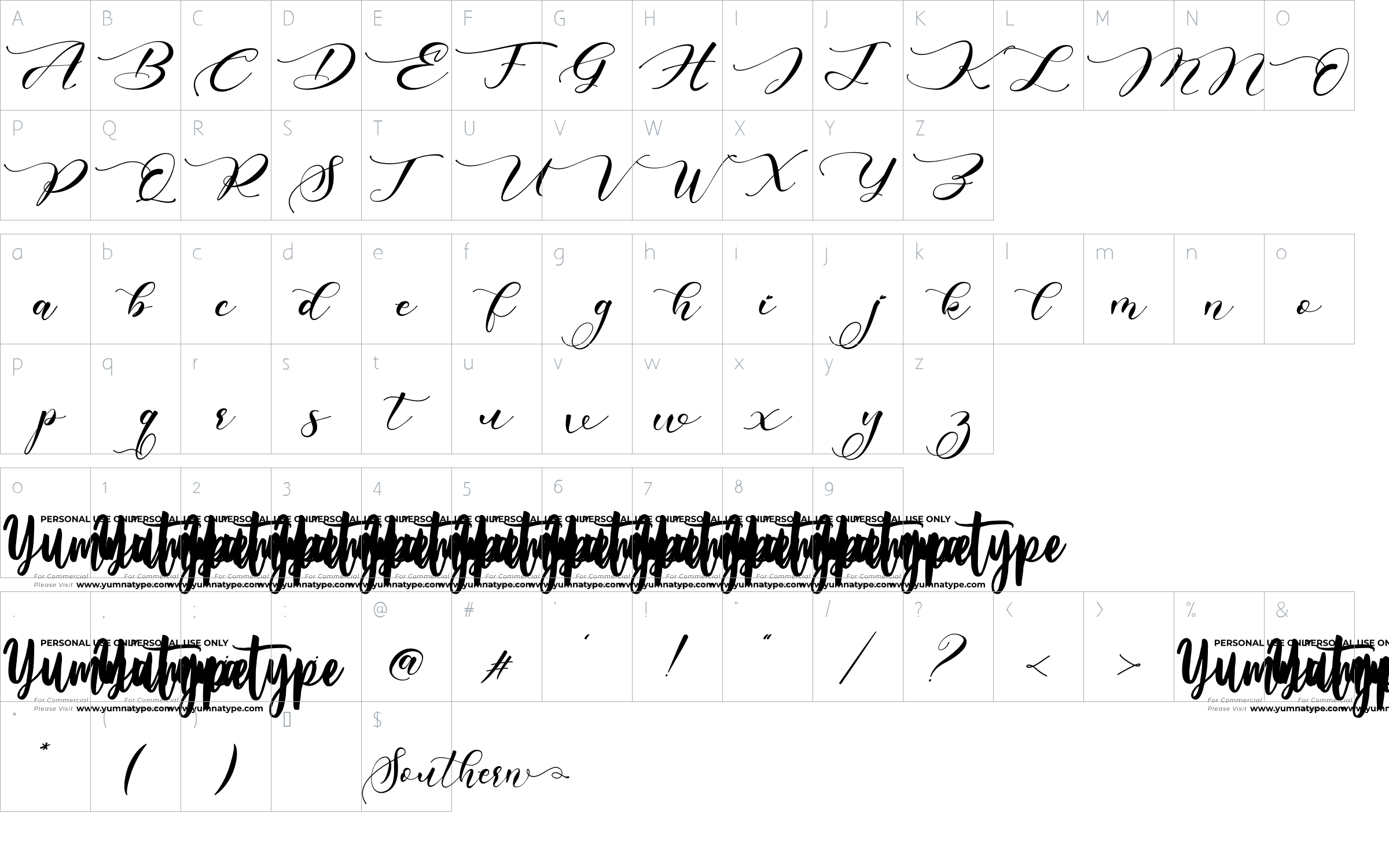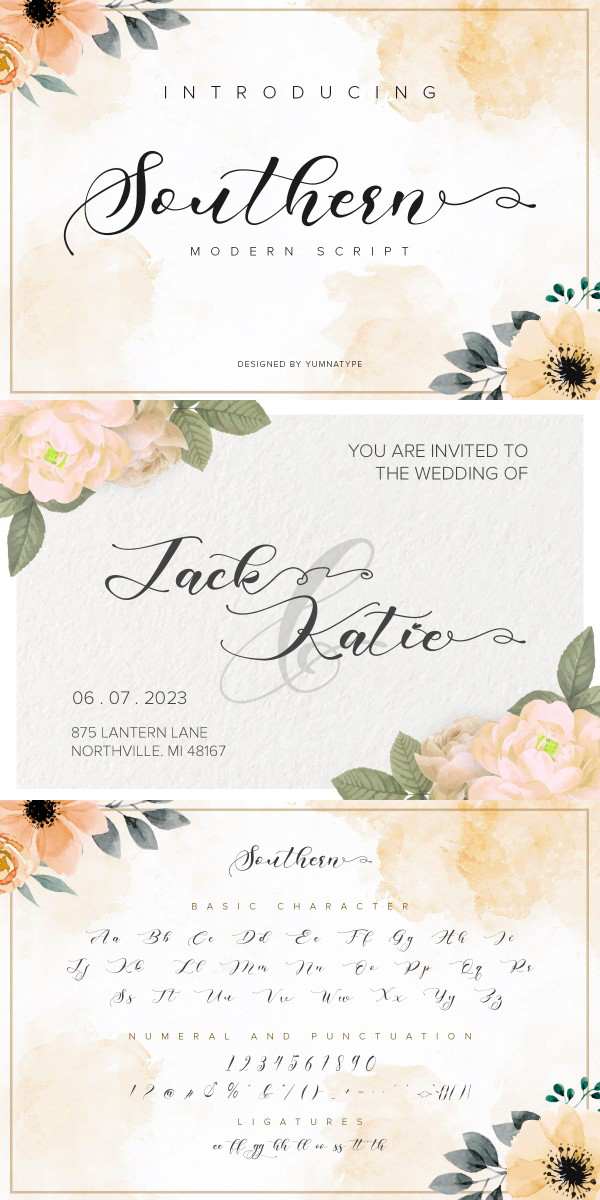
Southern Font
About Southern
Southern is a beautiful and modern script.
It brings a beautiful and modern typeface that best used for weddings, branding, logotype, and quotes.:
-Beautiful Alternates + Swashes
-Beginning Swash and Ending Swashes (a-z)